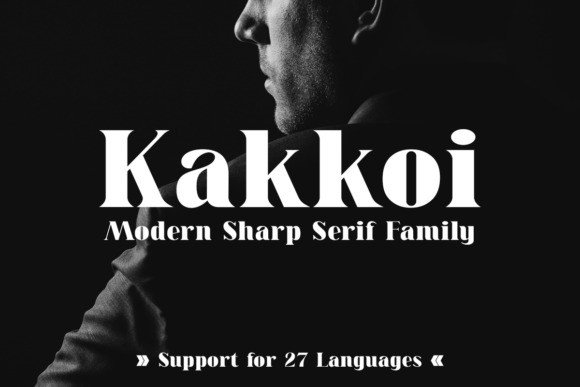
Kakkoi Serif Font
Kakkoi is a bold and modern serif font, carefully handcrafted to become a true favorite. This font will look outstanding in any context, whether it’s being used on busy backgrounds or as a standalone headline!
Kakkoi Font is a serif font for the light-hearted and whimsical. The uppercase is modern enough to pass as an elegant option for design/logo work (especially when paired with a beautiful script font), but the imperfect lowercase gives this font its signature quirk.